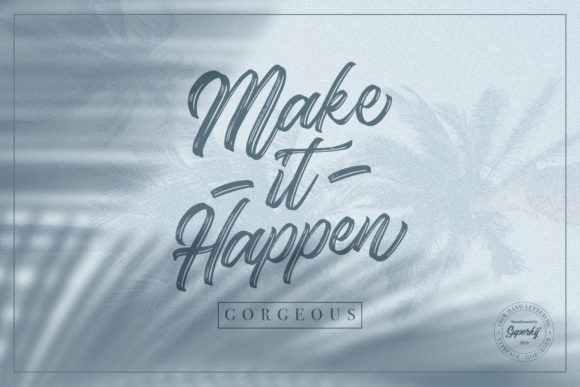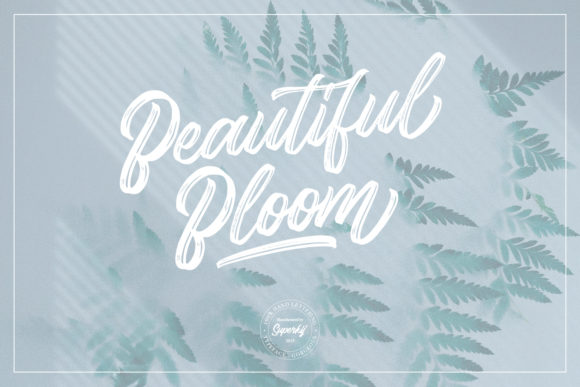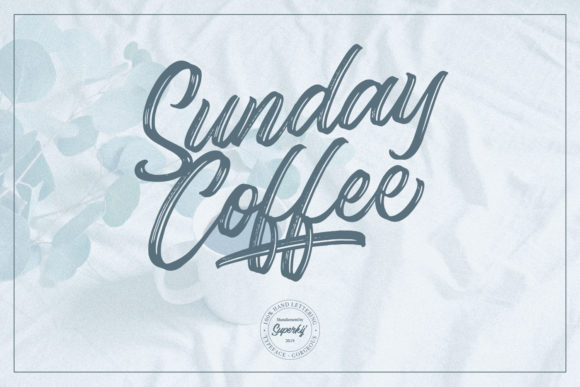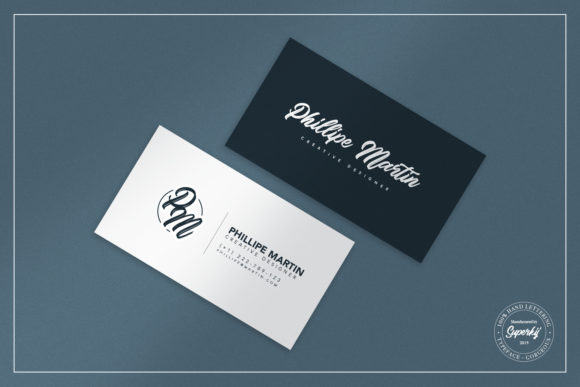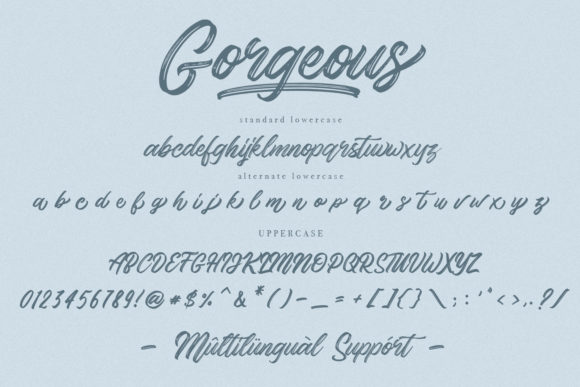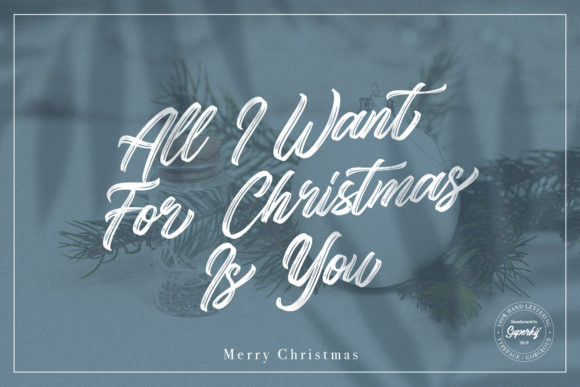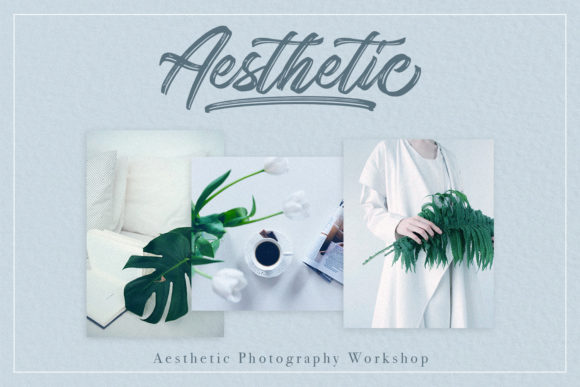
Gorgeous Font
About Gorgeous Font
Gorgeous is the perfect font for giving your designs a handcrafted feel. This fun and fancy script will take any project to the next level.